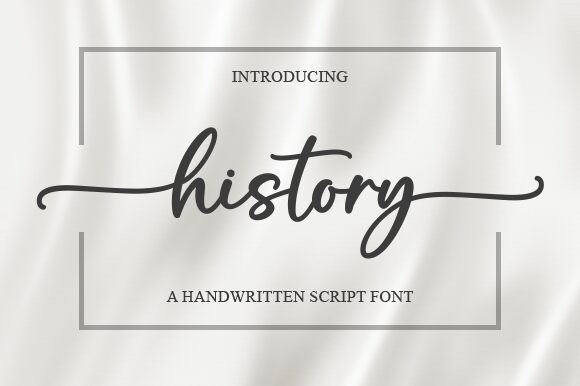
HIstory
History is a charming semi-light handwritten font designed by Graphix Line Studio. Its unique style brings a touch of personality to any project, making it perfect for invitations, greeting cards, and social media posts. The semi-light weight adds a delicate and elegant touch to the overall design. This font typeface works well with vintage or retro-themed designs, as well as modern projects that need a hint of personality. History is suitable for branding, packaging design, wedding stationery, restaurant menus and more. Add a personal touch to your next project with History font!